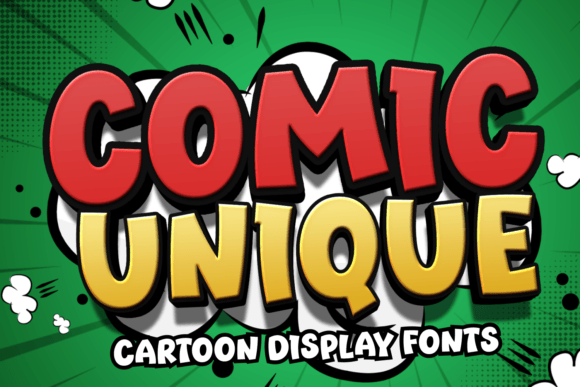
The Perfect Font for Superhero Storytelling
Have you ever stared at a blank canvas, trying to conjure up the perfect font to bring your comic book-inspired design to life? The struggle is real, but it’s about to get a whole lot easier with the introduction of the Comic Unique Font. This cartoon display font is specifically designed for superhero-themed projects, comic books, movie posters, and any pop culture-related endeavors.
What makes Comic Unique Font so valuable for designers is its dramatic style, which perfectly captures the spirit of adventure and heroism. Whether you’re creating a bold comic book cover or a movie poster that screams action, this font is sure to deliver. With its unique blend of style and functionality, Comic Unique Font is a go-to choice for designers who want to make a lasting impact.
Comic Unique Font Key Features
- Unique Characteristics: Distinctive hand-drawn style, with bold and playful lines, ideal for comic books, children’s books, and graphic novels
- Supports Ligatures and Kerning: For a more natural and polished look, the font includes ligatures and kerning pairs to ensure smooth text flow
Comic Unique Font Review
Overall, I was really excited to dive into the Comic Unique Font, but my experience was a mixed bag. Here’s the lowdown.
- Unique design: The Comic Unique Font certainly stands out from the crowd with its quirky, hand-drawn style.
- Expressive characters: The font’s irregular shapes and flourishes add a lot of personality to the text.
- Good for headlines: The font’s bold, attention-grabbing quality makes it perfect for use in headlines and titles.
- Readability issues: The font’s irregular shapes can make it difficult to read, especially at smaller font sizes.
- Limited legibility: The font’s bold, expressive quality can sometimes make it hard to distinguish between similar-looking characters.
- Not ideal for body text: While the font is great for headlines, it may not be the best choice for large blocks of body text.
Overall, I think the Comic Unique Font is a great choice for designers who want to add a touch of whimsy and personality to their work. However, it may not be the best fit for every project.
Getting the Most Out of the Comic Unique Font
To get the most out of the Comic Unique Font, experiment with different font sizes, colors, and alignments to create a visually appealing design.
Use the font to add a touch of whimsy and playfulness to your design, such as in children’s book illustrations or comic strips.
Combine the Comic Unique Font with other fonts and design elements to create a unique and eye-catching visual identity.